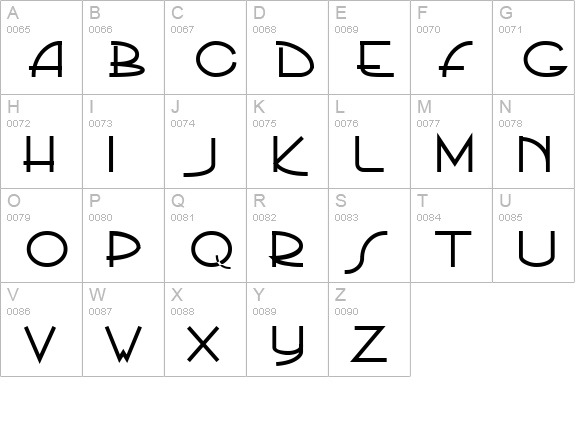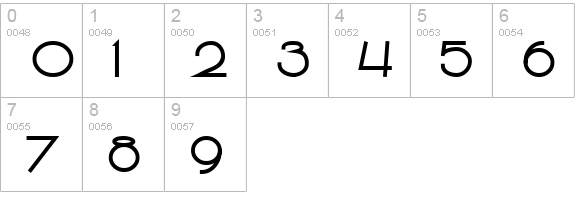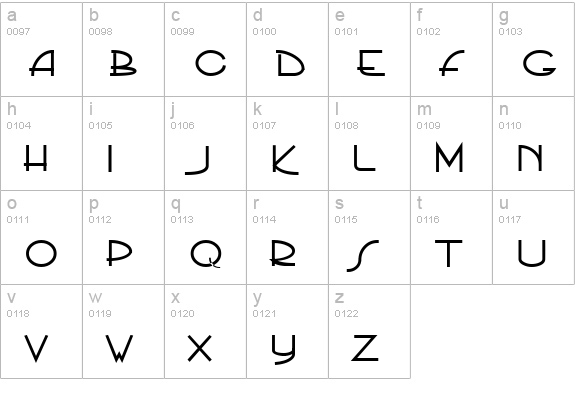
PP_Hip20s Font Details
PP_Hip20s is a modern and stylish font that exudes a youthful and energetic vibe, perfect for adding a touch of sophistication to any project. The sleek lines and sharp edges of this font make it stand out, while still maintaining a sense of elegance and professionalism. Whether you are working on a branding project, designing a poster, or creating social media graphics, PP_Hip20s is sure to make a statement. What's even better is that PP_Hip20s is available for free download at FontsMarket.com. This means you can easily access this versatile font and use it in your designs without any cost. Don't miss out on this opportunity to enhance your projects with the modern aesthetic of PP_Hip20s. Download it now and take your designs to the next level!